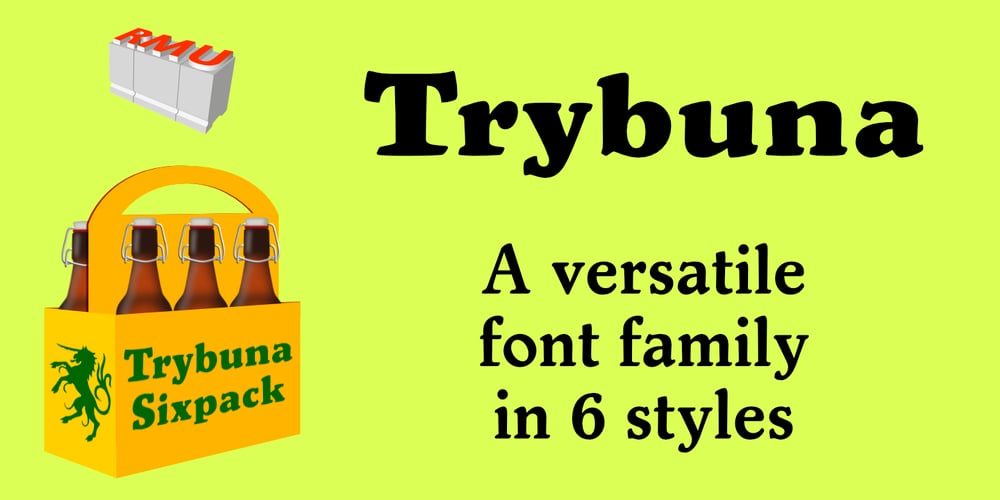
Trybuna Font Family was designed by Ralph M. Unger and published by RMU. Trybuna contains 6 styles and family package options. Inspired by Thannhaeuser’s Liberta, completely fresh drawn and designed, Trybuna is a pronounced, freestyle serif font family, intended for body texts in print and for the web.